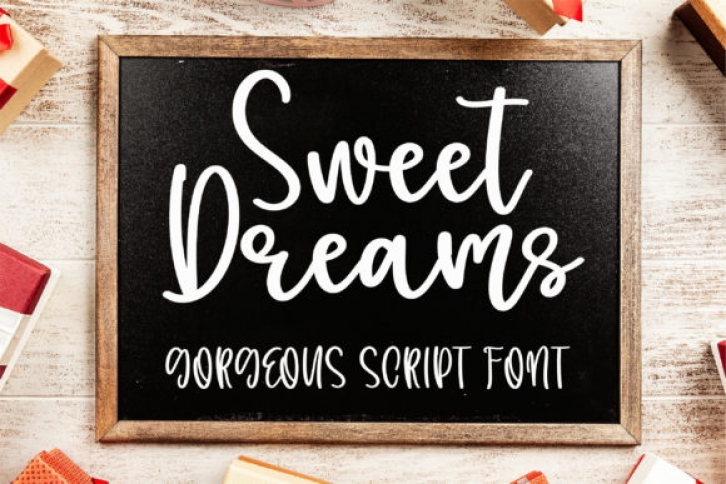
Sweet Dreams is a handwritten script font. Its natural and unique style makes it incredibly fitting to a large pool of designs. Get inspired with its amazing look and create gorgeous designs.